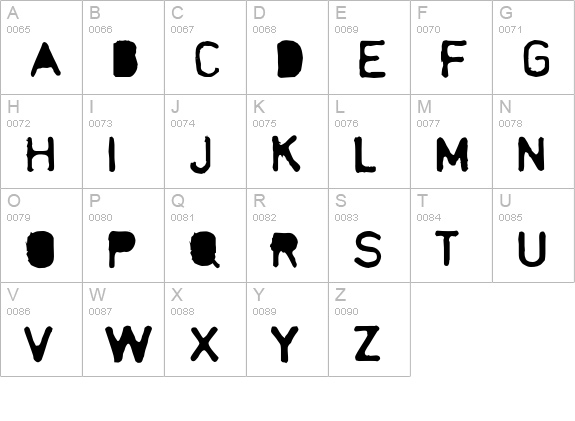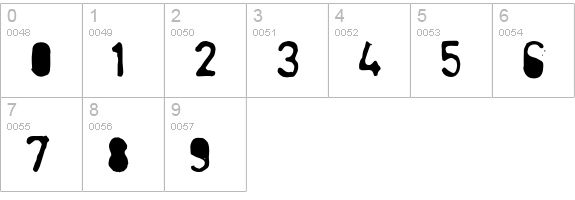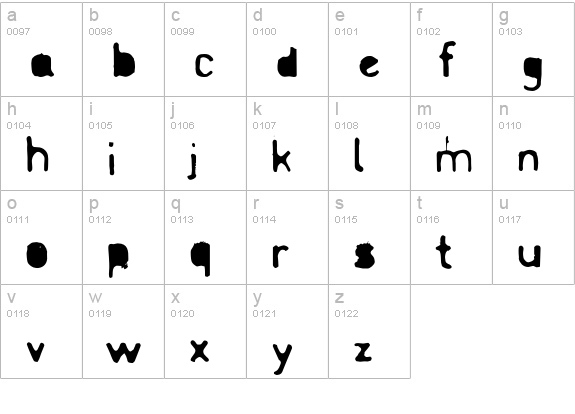
Introducing Goblin font, a whimsical and quirky typeface perfect for adding a touch of mischief to your designs. This unique font features playful characters with a hint of mischievous charm, making it ideal for projects that need a fun and lighthearted feel. Goblin font is versatile and can be used for a variety of design projects, from invitations and greeting cards to posters and social media graphics. Its bold and eye-catching style is sure to make your text stand out and grab attention. And the best part? Goblin font is completely free to download at FontsMarket.com! So go ahead and add a touch of whimsy to your designs with this charming and playful typeface today.